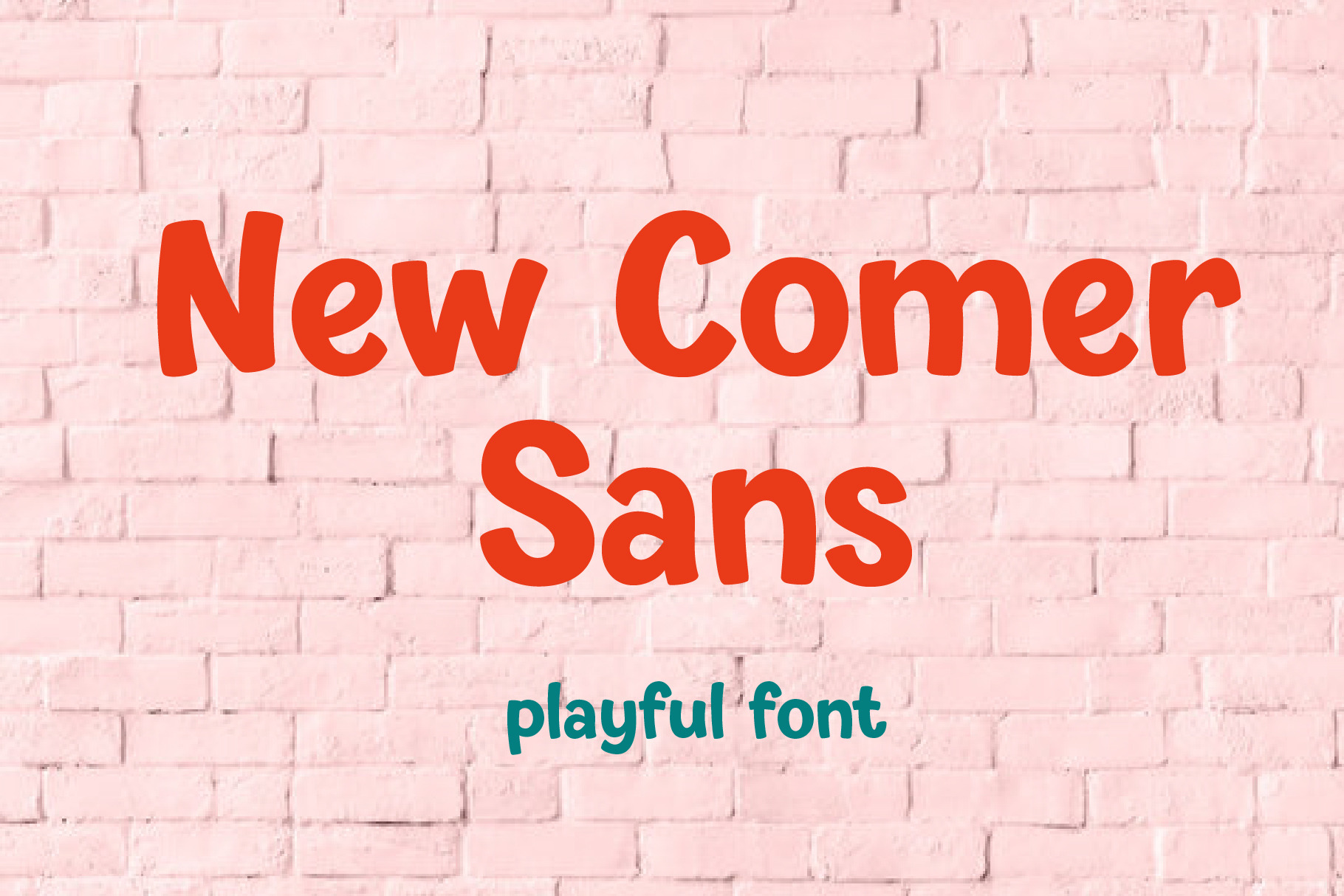
New Comer Sans - playful marker font
New Comer Sans is a combination of two ideas. First is my speed writing with flat acrylic marker on boards. And second is to make new bold font something like puffy «comic sans» font. Unstable stems (vertical main lines) give it some playful unserious character. The result is cute funny font. You can use it in short text blocks in huge and medium sizes. For example, for comic books or kids applications.
- uppercase
- lowercase
- more than 480 glyphs which support Latin, Western European, Central European languages (Cyrillic is also included)